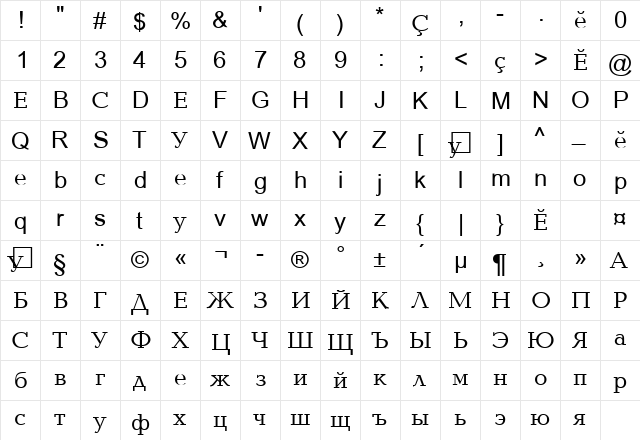
BaltChv Regular
Design Context for BaltChv Typeface
BaltChv takes a measured approach to typography — its balanced proportions and neutral character make it a reliable workhorse for both digital and print work.